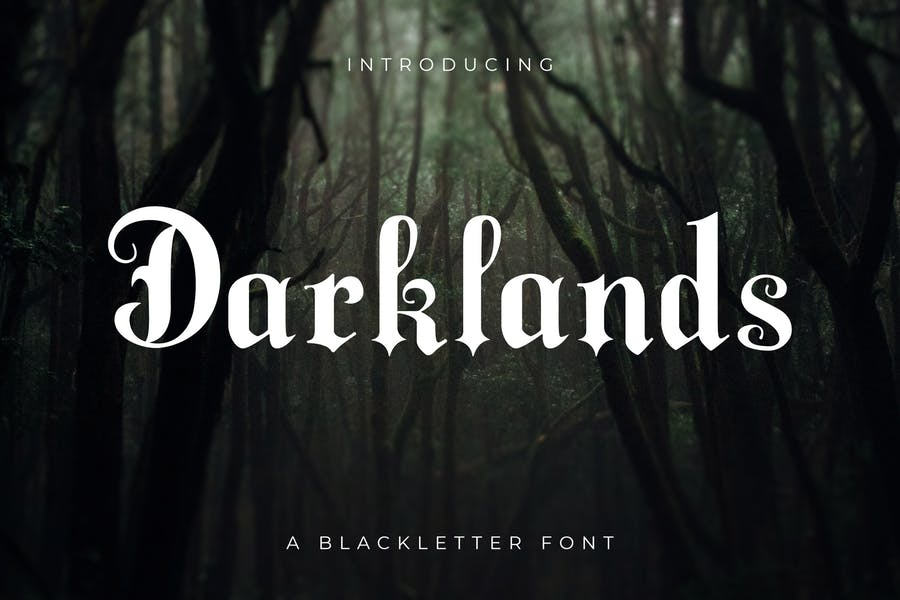
Darklands Font
Darklands Font is perfect for gothic branding, horror designs, metal band logos, dark fantasy projects, haunting advertising, mysterious packaging, occult graphics, dramatic posters, supernatural themes, and atmospheric visual communications. This compelling typeface excels in both digital and print applications requiring dark intensity.
Darklands Font is exciting because it captures the haunting beauty of dark aesthetics with dramatic letterforms that create powerful visual impact while maintaining excellent readability. Its mysterious character generates memorable brand experiences that resonate with audiences drawn to gothic culture, dark fantasy, and supernatural themes.
The Darklands Font family includes regular, bold, light, distressed, outline, shadow, and ornamental variants, providing designers with comprehensive typographic options for various design scenarios and dark atmospheric communication requirements.
Darklands Font embodies the captivating essence of dark fantasy and gothic aesthetics, delivering exceptional typography that reflects the mysterious allure and dramatic intensity associated with supernatural themes and alternative culture. This evocative typeface draws inspiration from gothic architecture, medieval manuscripts, and dark romanticism to create letterforms that communicate mystery, power, and otherworldly appeal. The font's atmospheric character makes it particularly valuable for entertainment companies, alternative fashion brands, gaming studios, and cultural organizations that require typography capable of conveying dark sophistication, mysterious authority, and supernatural atmosphere.
The dramatic construction of Darklands Font demonstrates masterful understanding of gothic design principles, with distinctive details and bold proportions that create compelling visual compositions reminiscent of ancient manuscripts and medieval craftsmanship. This careful balance ensures excellent performance across diverse applications, from album covers to brand communications where dark atmosphere enhances storytelling impact. The font's haunting qualities make it especially effective for brands in entertainment, alternative music, horror fiction, and cultural arts that celebrate mystery and dramatic expression.
Creative professionals working with Darklands Font Free Download will appreciate the typeface's versatility across gothic and contemporary design challenges. Its dark styling bridges historical gothic tradition with modern alternative aesthetics, making it suitable for established cultural brands and innovative companies requiring distinctive, memorable typography with supernatural appeal. The font's commanding presence makes it particularly effective for gaming companies, alternative venues, cultural events, and entertainment brands that must communicate intensity through powerful, emotionally resonant visual design.
Whether developing dark brand identities, creating atmospheric communications, or designing supernatural marketing materials, Darklands Font provides the gothic power needed for communications that inspire fascination and create memorable experiences while maintaining professional standards and achieving distinctive presence across all dark fantasy applications.